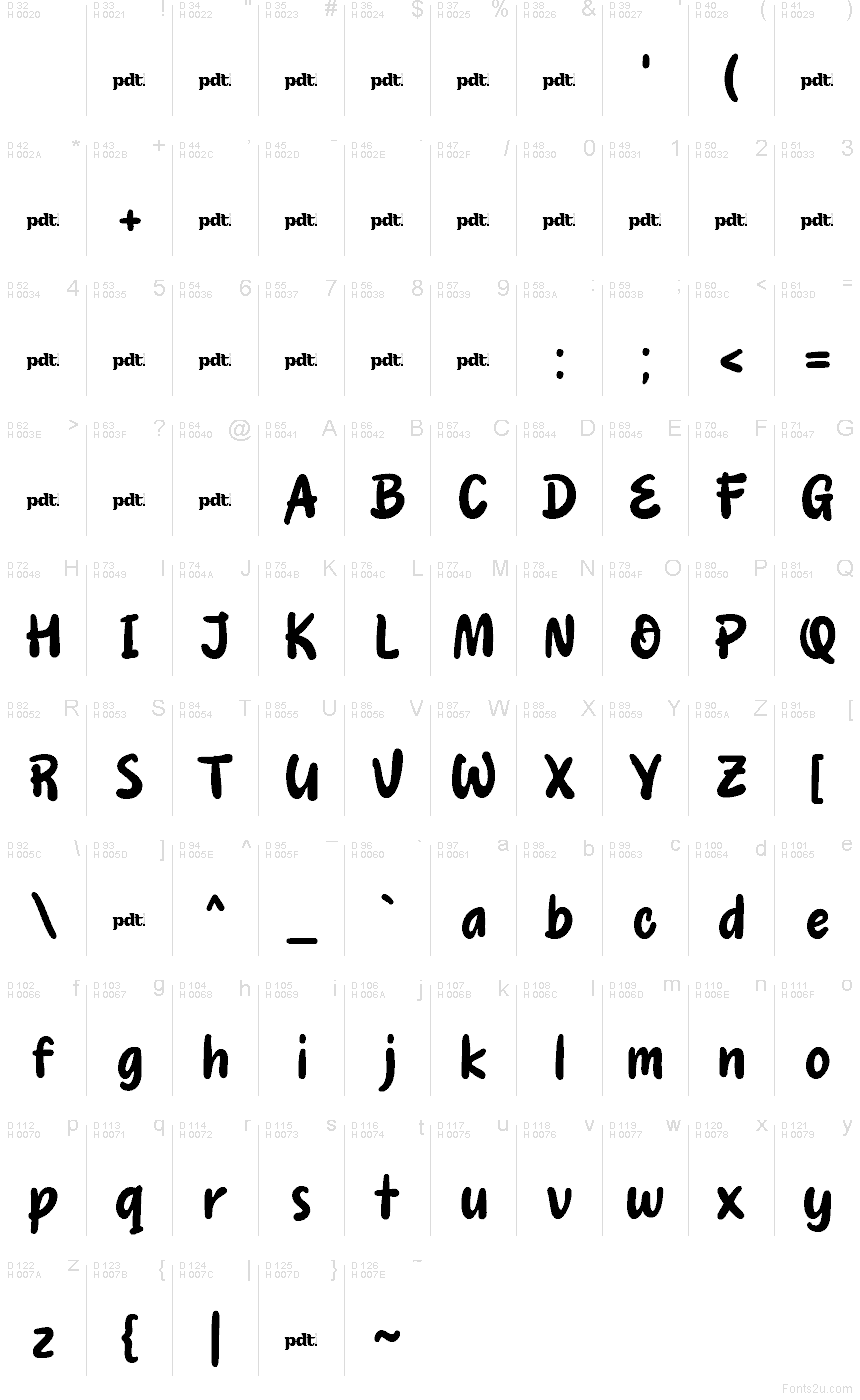
Anowy by Productype is a free cartoon display font with plump, loosely drawn letters and an upbeat, unruly silhouette. Stroke widths swell and narrow across the alphabet, creating soft bends, pinched joins, and lively differences in height. The lettering seems to bounce as it moves.
Its goofy shapes could give children's entertainment a mischievous title treatment, yet they also suit informal food packaging with a homemade streak. Posters and merchandise are another convincing fit because the broad forms read as both lettering and simple graphic shapes. The playful irregularity points most directly toward young audiences, comedy projects, and brands built around casual fun.